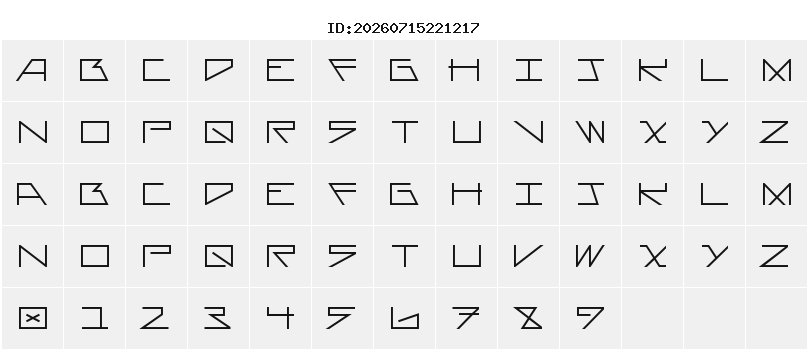
• Font Name: AsteriskPlain
• Full Font Name: AsteriskPlain
• Version: Version 1.00 July 3, 2015, initial release
• Designer: Max Infeld Xerographer Fonts
• Manufacturer: Xerographer Fonts
• Description: Made by Xerographer Fonts in Chico,California
About AsteriskPlain.ttf
AsteriskPlain.ttf is a modern, elegant sans-serif font designed for ultimate readability and visual harmony. Perfect for branding, headlines, web design, and print materials.